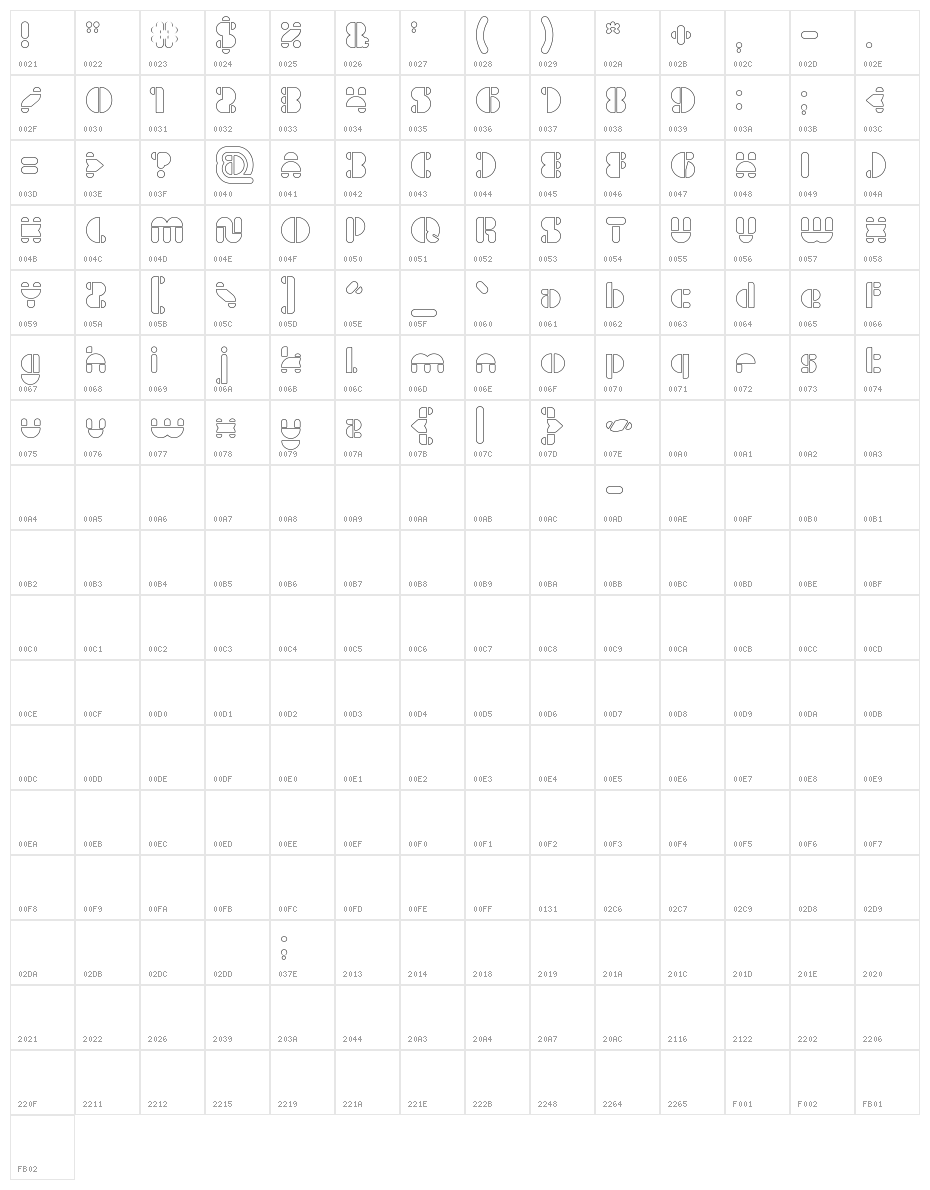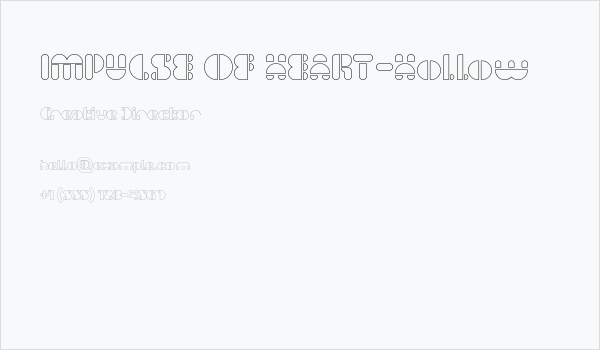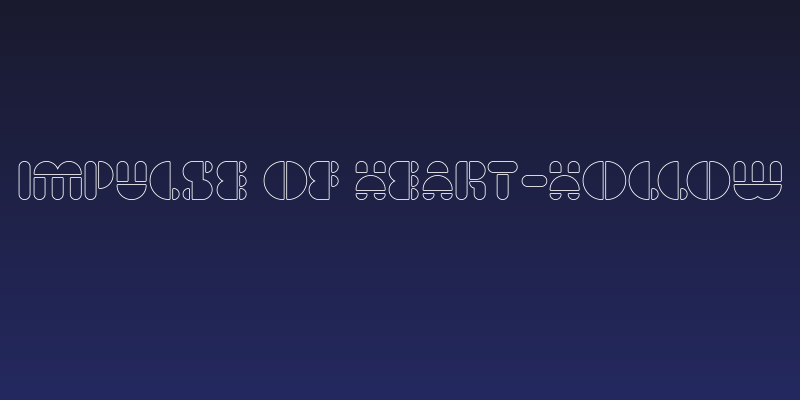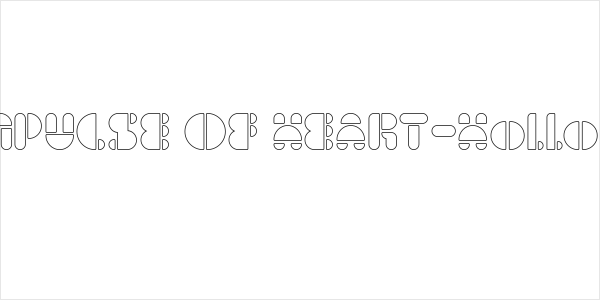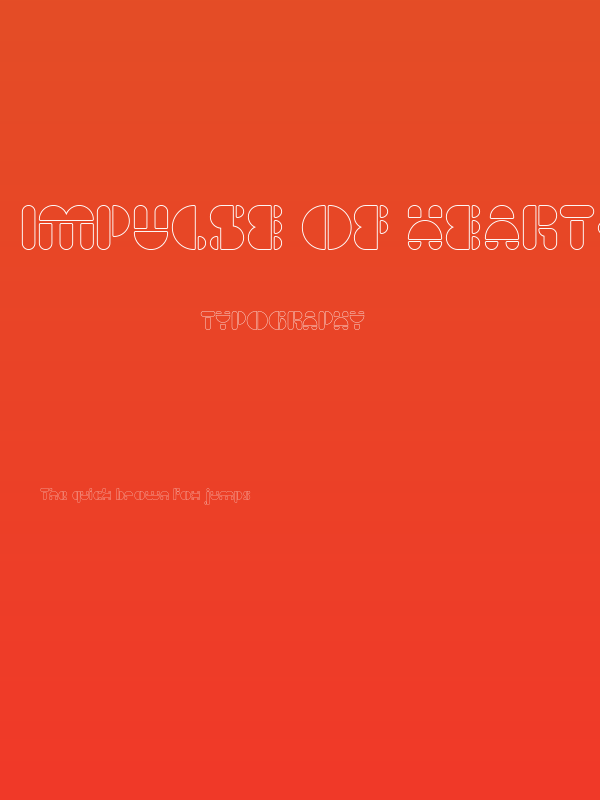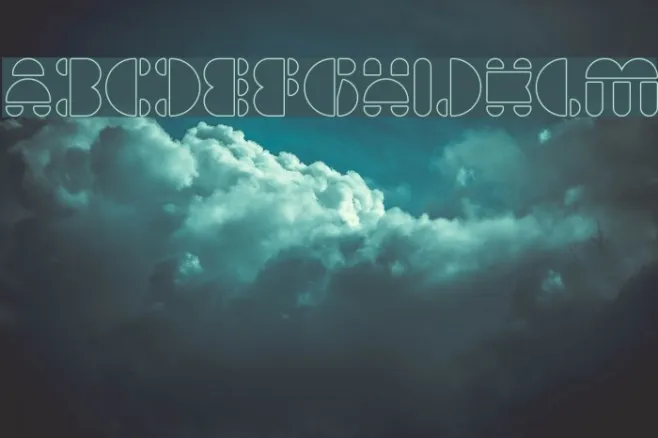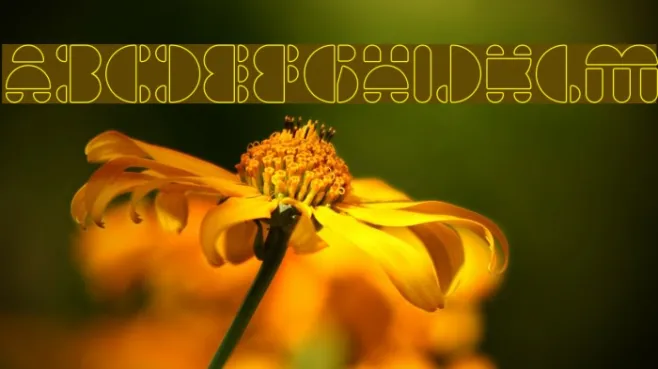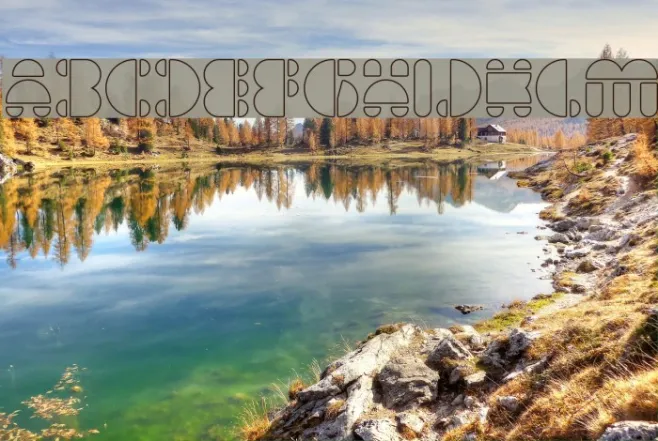
IMPULSE OF HEART-Hollow Font
IMPULSE OF HEART-Hollow Description
This font features a unique hollow design with geometric shapes forming each character. The letters are constructed with a combination of circles and straight lines, creating an abstract and modern appearance. The uppercase and lowercase letters maintain a consistent style, with the same geometric elements applied throughout. The numbers and special characters follow the same design principles, ensuring a cohesive look. This font's distinct hollow style makes it stand out, offering a creative and artistic touch to any project.
| Use Case | Logos, Posters, Digital Art |
| Proposed Projects | Ideal for creative projects such as posters, logos, and digital artwork where a modern and artistic flair is desired. |